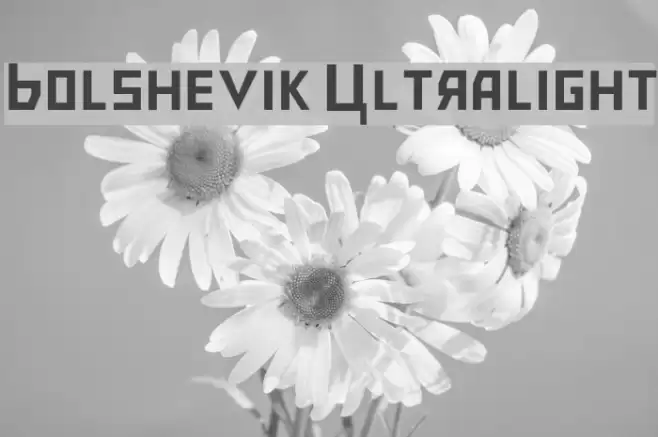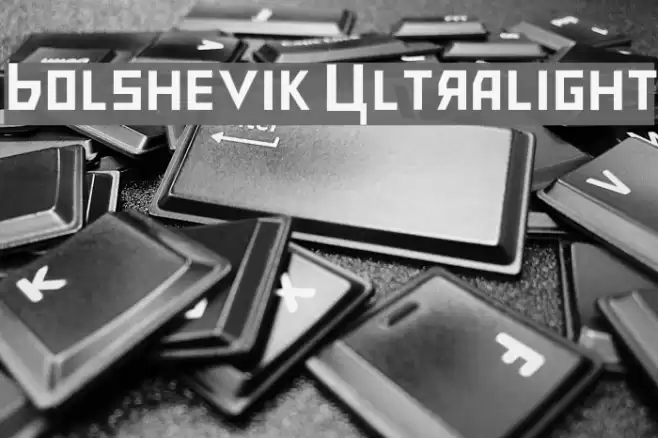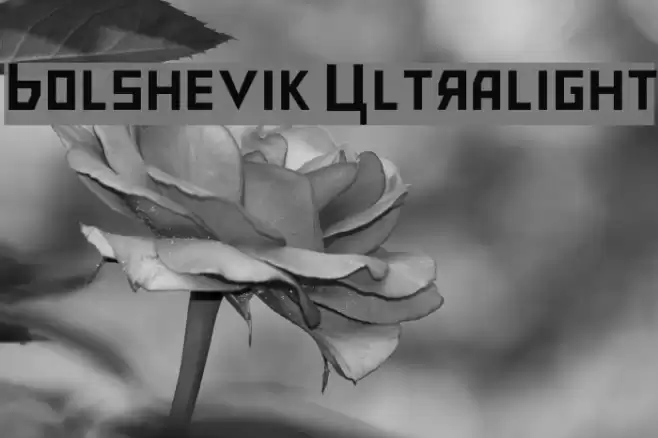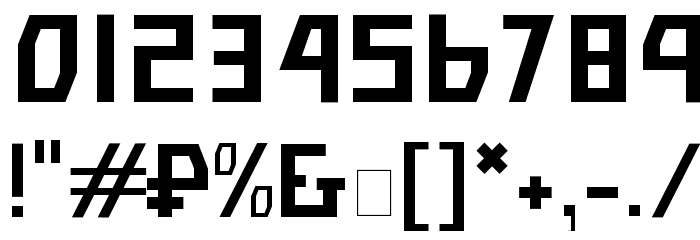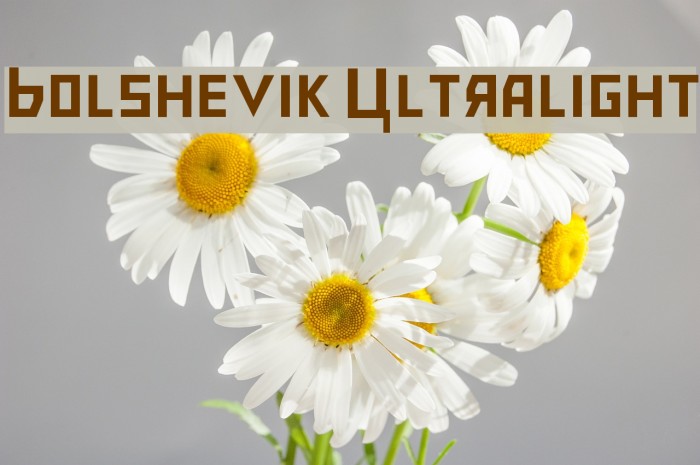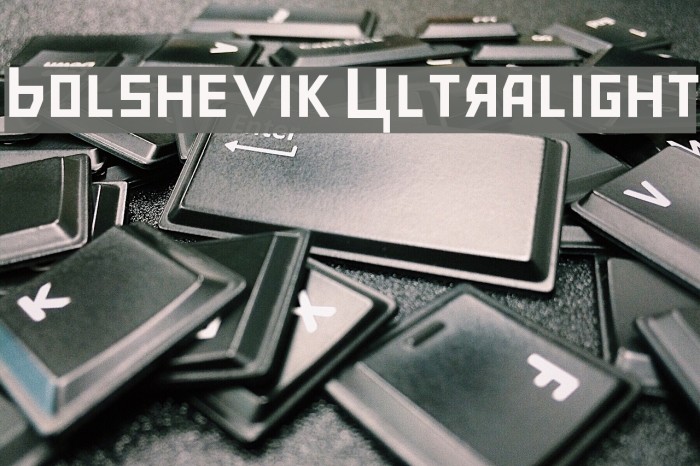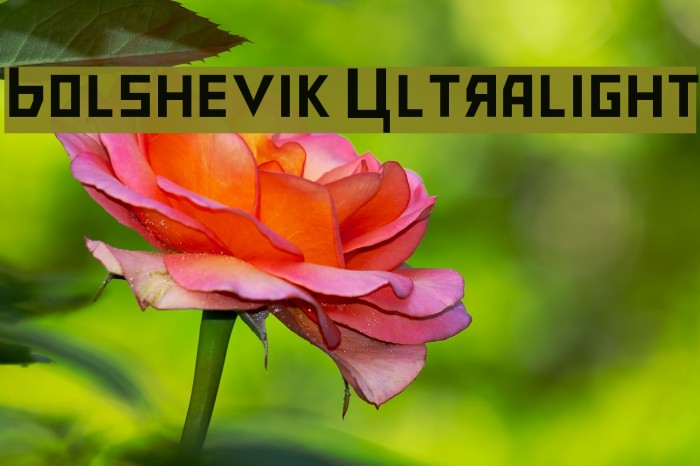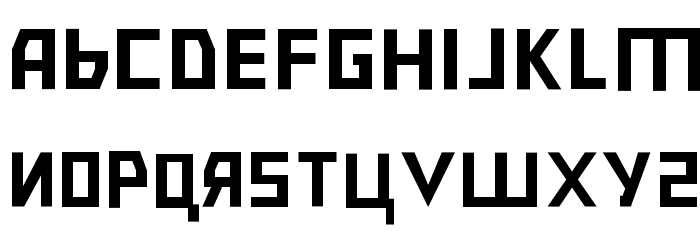
Bolshevik Ultralight Font
Bolshevik Ultralight Description
This font features a bold and geometric design with a strong, angular presence. The characters are constructed with sharp edges and a blocky structure, giving it a modern and industrial feel. The uppercase and lowercase letters maintain a consistent style, with a uniform height and width that enhances readability. The numerals and special characters follow the same geometric theme, ensuring a cohesive look across all text. This font's distinct style makes it suitable for attention-grabbing headlines and impactful graphic design projects.
A bold, geometric font with a modern, industrial aesthetic from Uncategorized fonts.
- Proposed Projects: Ideal for branding, posters, headlines, and digital artwork that require a strong visual impact.